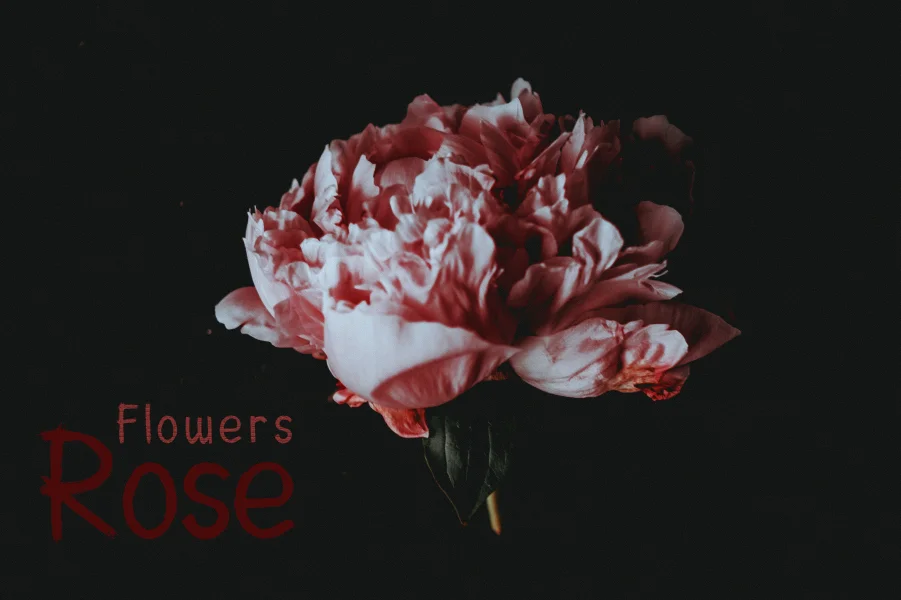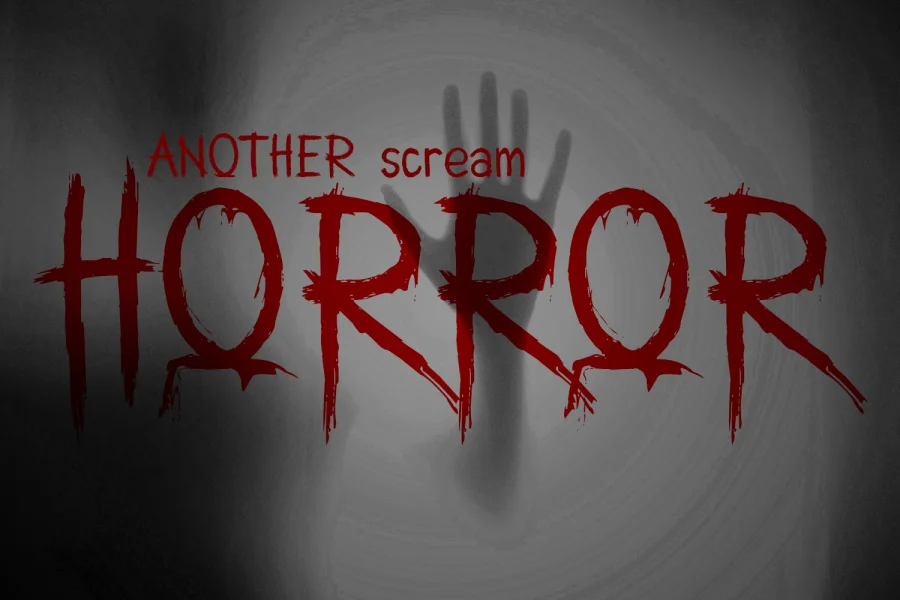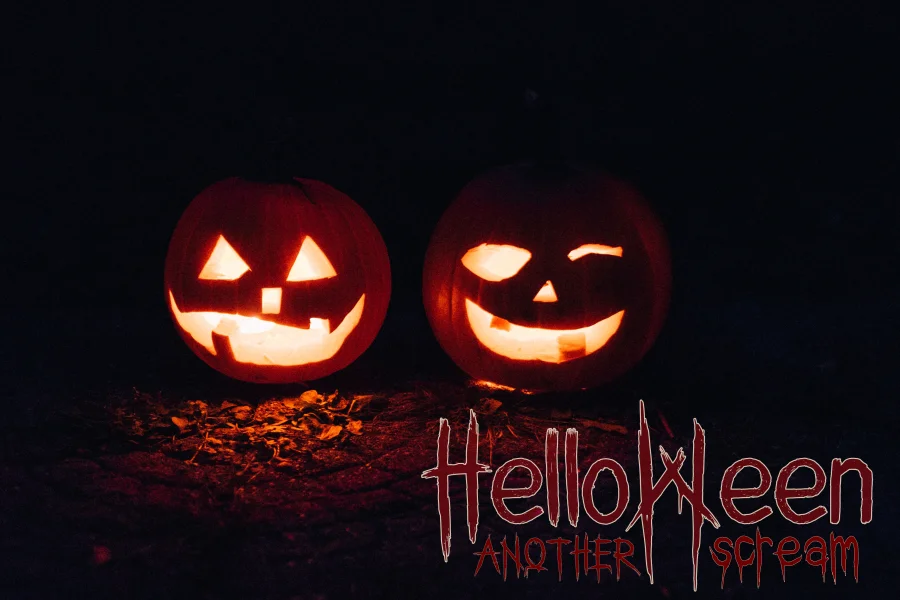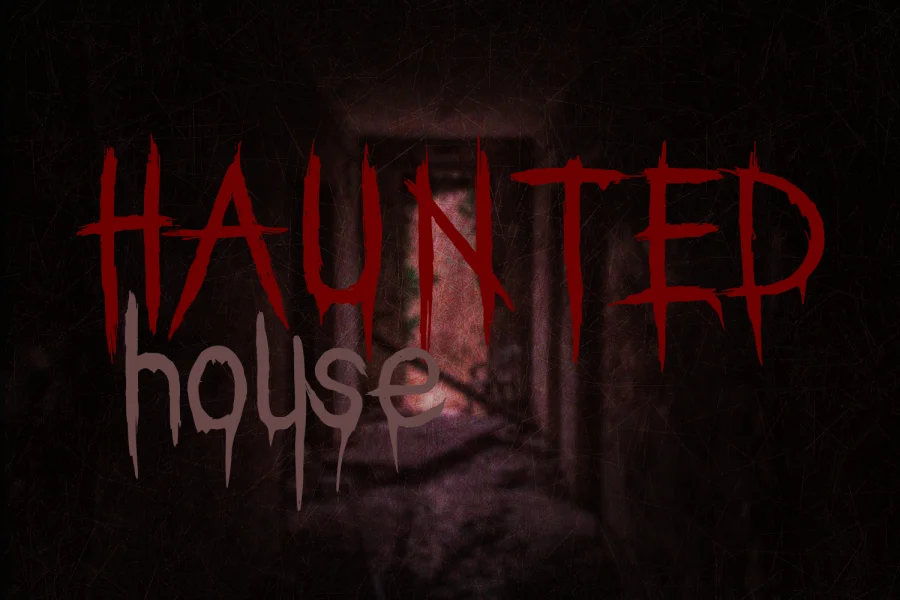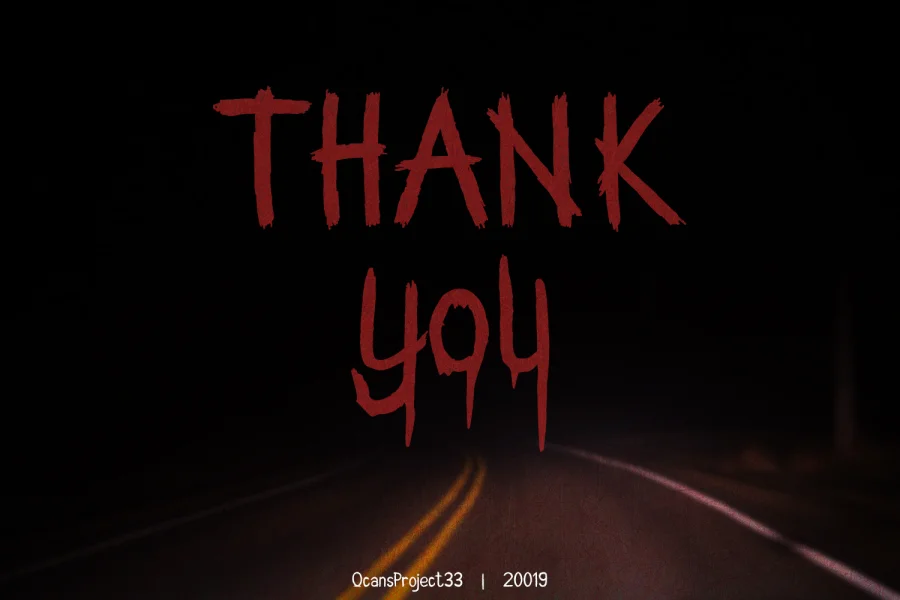
Another Scream Font is typography made by crossing using a pen, characters in it, there are lowercase letters, uppercase letters, punctuation symbols,and equipped with an alternative style that suits what you want and includes multilingual.
Another Scream fonts are more suitable for movie titles, posters, logos, quotes, shirts, labels, posters, and more